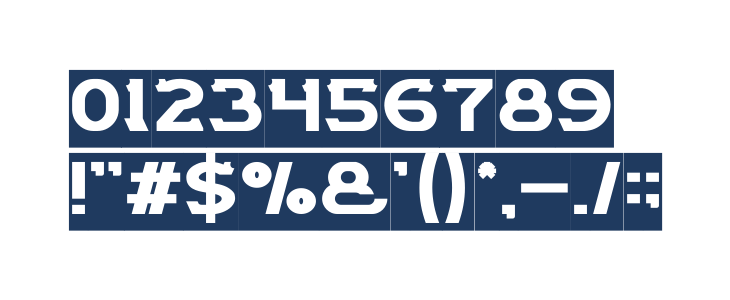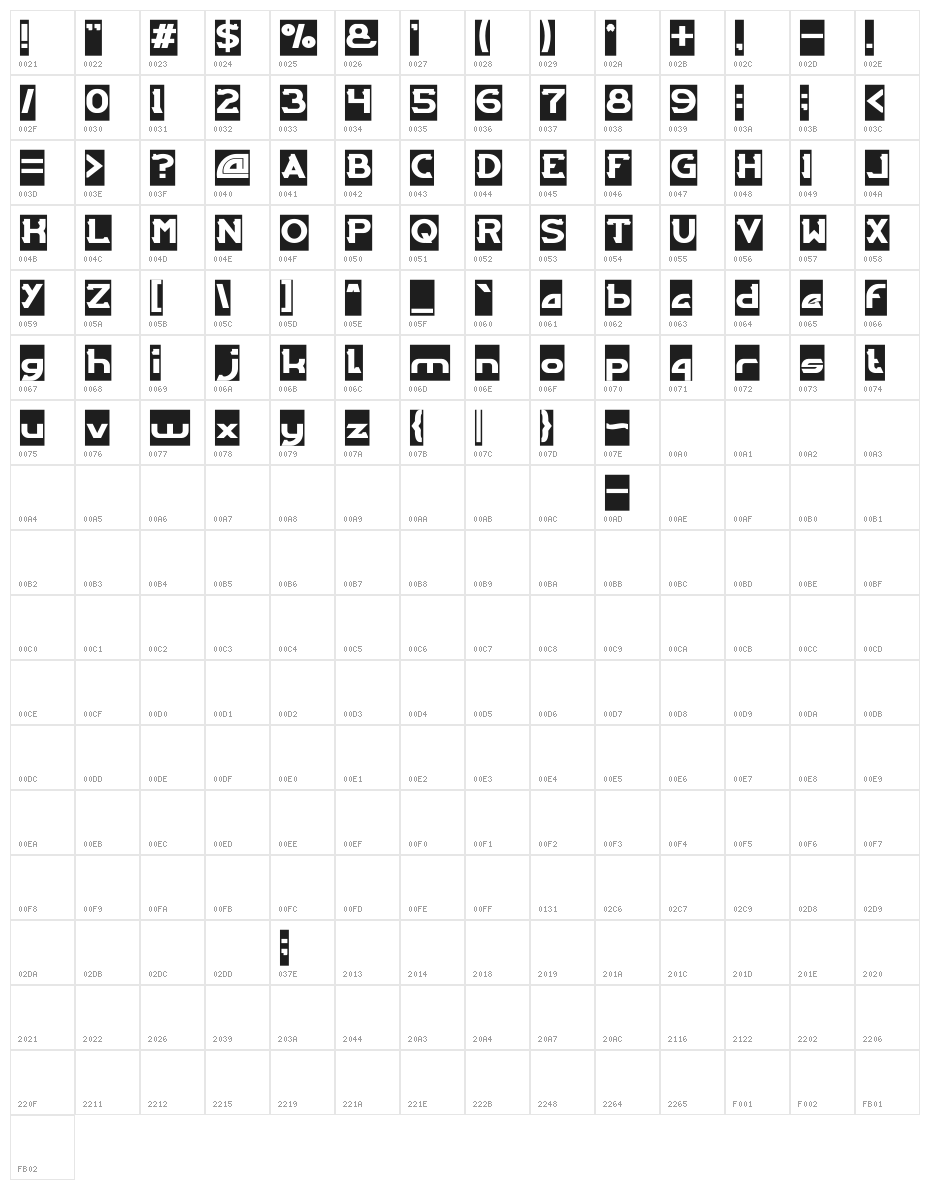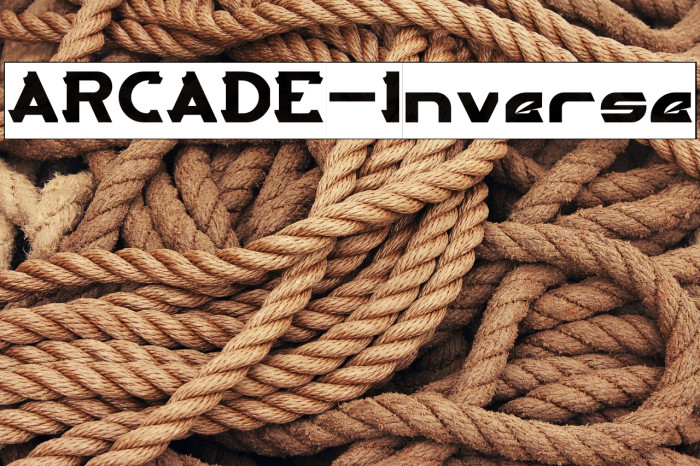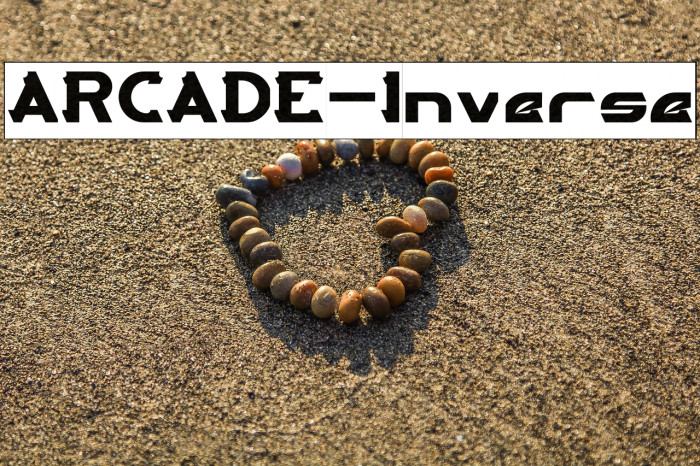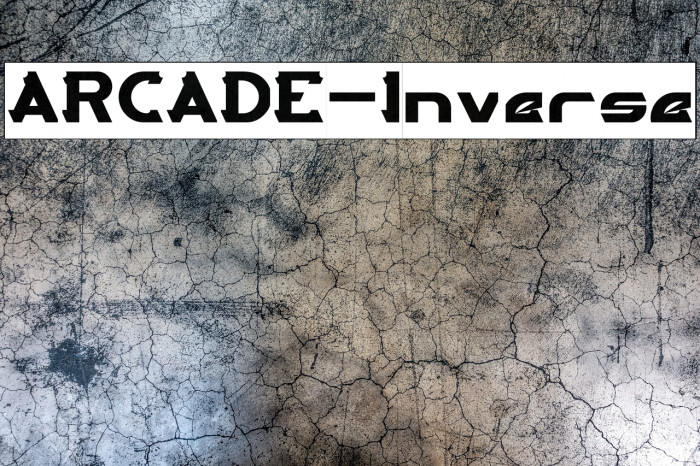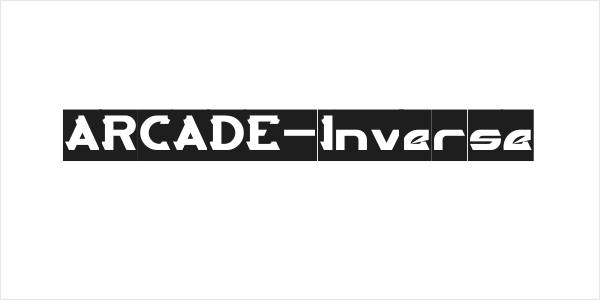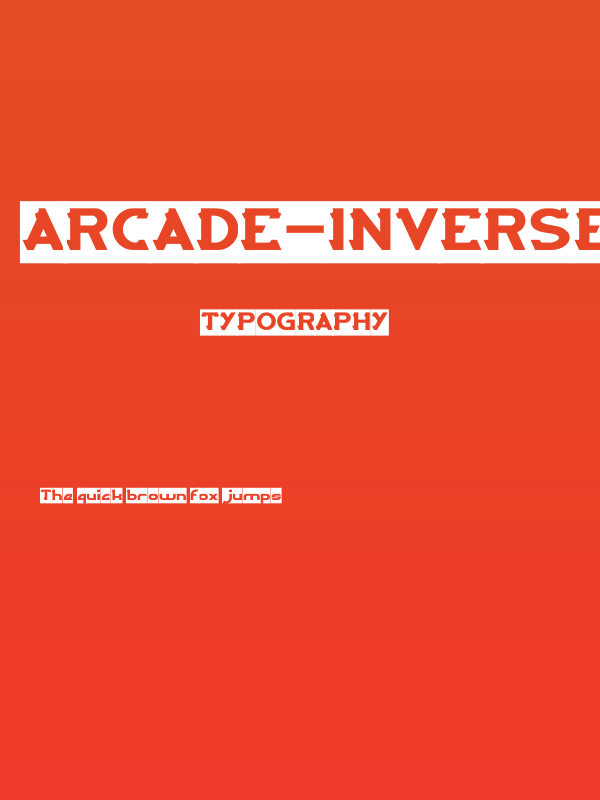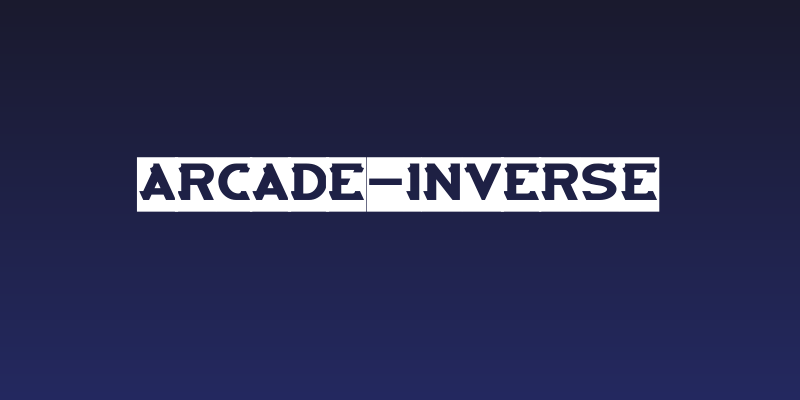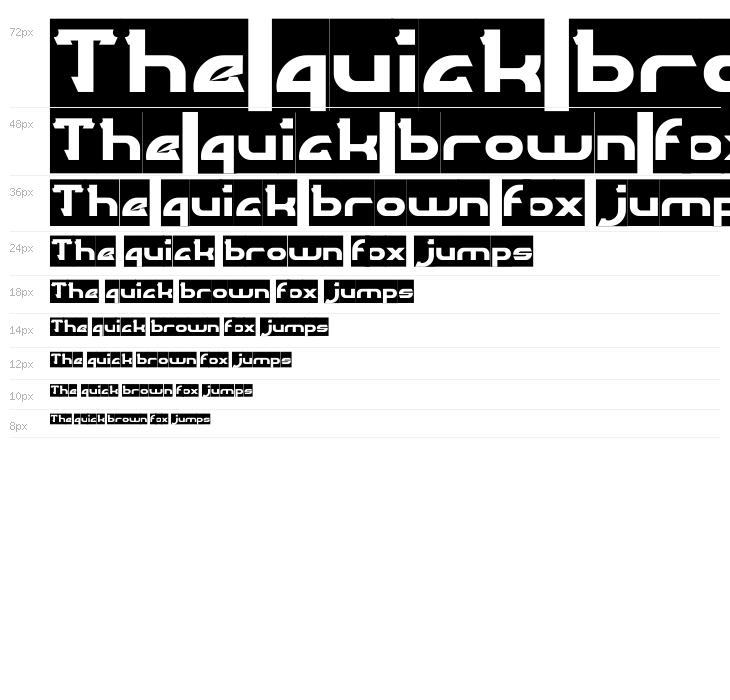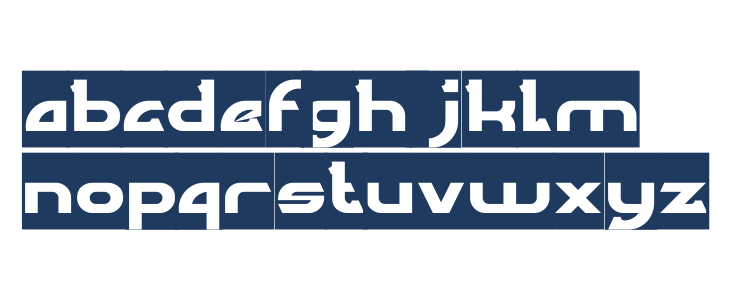
ARCADE-Inverse Font
ARCADE-Inverse Description
This font features a bold and dynamic style with a distinctly retro and arcade-inspired aesthetic. The characters are blocky and geometric, with sharp angles and a strong presence. The uppercase letters are particularly striking, with a uniform height and width that create a cohesive look. The lowercase letters maintain the boldness but introduce some curves, adding a touch of playfulness. Numbers and special characters follow the same bold and angular design, ensuring consistency across all glyphs. This font is perfect for capturing the essence of vintage video games and retro digital displays.